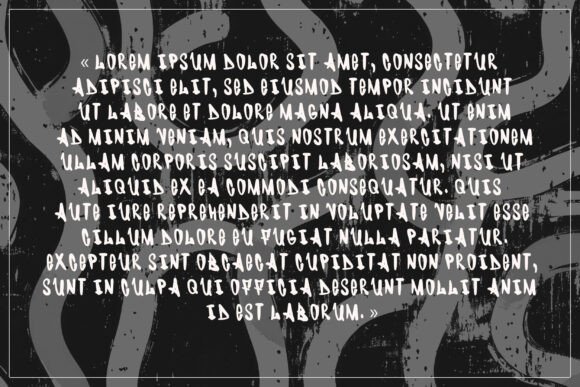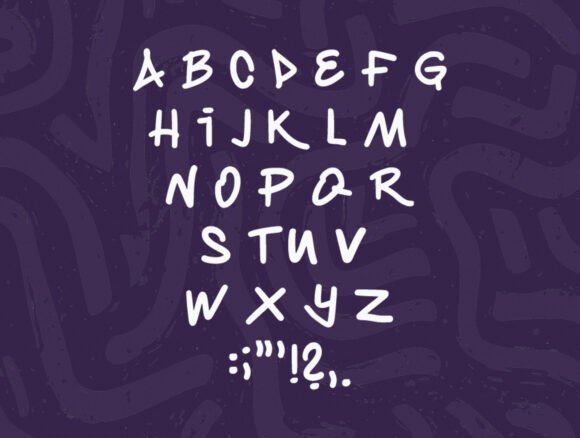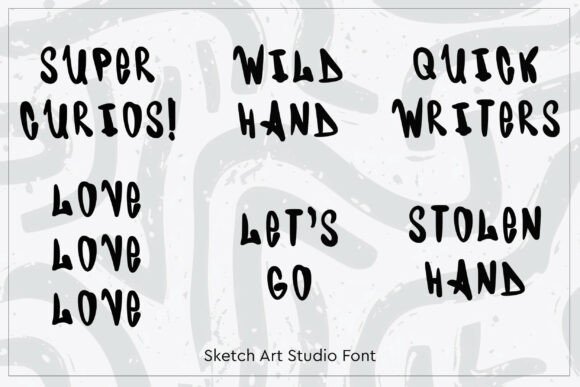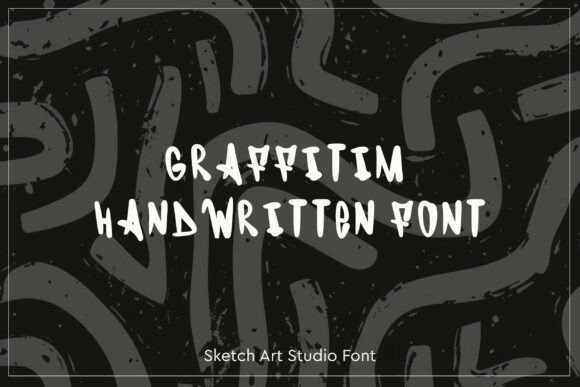
Unleash Your Creativity with Graffitim Font: The Ultimate Urban Display Font
Are you a designer or crafter looking for a font that embodies the raw energy and rebellious spirit of urban street art? Look no further than Graffitim Font. This bold, handwritten display font is designed to capture the essence of graffiti, with its uneven strokes, rugged texture, and unapologetic aesthetic. In this article, we’ll dive into the world of Graffitim Font, exploring its features, benefits, and uses, and why it’s the perfect choice for designers and crafters seeking to add an edgy touch to their work.
The Inspiration Behind Graffitim Font
Graffitim Font is inspired by the vibrant, dynamic world of urban street art. The font’s creator aimed to distill the essence of graffiti into a digital format, resulting in a typeface that’s bold, expressive, and authentic. With its rough, hand-crafted texture, Graffitim Font looks like it was quickly scrawled onto a wall or canvas with a thick marker or brush, giving it an undeniable street cred.
Key Features of Graffitim Font
So, what makes Graffitim Font so unique? Here are some of its key features:
• Bold, uneven strokes: Graffitim Font features bold, expressive strokes that give it a dynamic, energetic feel.
• Rugged texture: The font’s texture is rough and hand-crafted, adding to its authentic, graffiti-inspired aesthetic.
• High-impact aesthetic: Graffitim Font is designed to make a statement, with a bold, attention-grabbing style that’s perfect for headlines, titles, and short phrases.
Perfect for Youth Culture, Music, Sports, and More
Graffitim Font is ideal for projects related to youth culture, music, sports, or any branding that requires an edgy, authentic voice. Its bold, unapologetic aesthetic resonates with a younger audience, making it perfect for:
• Apparel design: Add a graffiti-inspired touch to your t-shirt, hoodie, or hat designs with Graffitim Font.
• Album covers: Give your music project a bold, eye-catching look with Graffitim Font.
• Extreme event posters: Create bold, attention-grabbing posters for extreme sports events, concerts, or festivals with Graffitim Font.
• Social media graphics: Add a touch of urban grit to your social media graphics, from Instagram posts to Facebook headers, with Graffitim Font.
Why Choose Graffitim Font?
So, why should you choose Graffitim Font for your next project? Here are just a few reasons:
• Authentic, graffiti-inspired aesthetic: Graffitim Font captures the raw energy and rebellious spirit of urban street art, giving your project an authentic, edgy look.
• High-impact visibility: Graffitim Font is designed to grab attention, making it perfect for headlines, titles, and short phrases.
• Effortlessly cool hand-lettered style: Graffitim Font’s hand-crafted texture and bold strokes give it a cool, laid-back vibe that’s perfect for designers and crafters seeking a unique look.
In conclusion, Graffitim Font is the ultimate urban display font for designers and crafters seeking to add an edgy, authentic touch to their work. With its bold, uneven strokes, rugged texture, and high-impact aesthetic, Graffitim Font is perfect for projects related to youth culture, music, sports, and more. Whether you’re designing apparel, album covers, extreme event posters, or social media graphics, Graffitim Font delivers a commanding and effortlessly cool hand-lettered style that’s sure to turn heads.